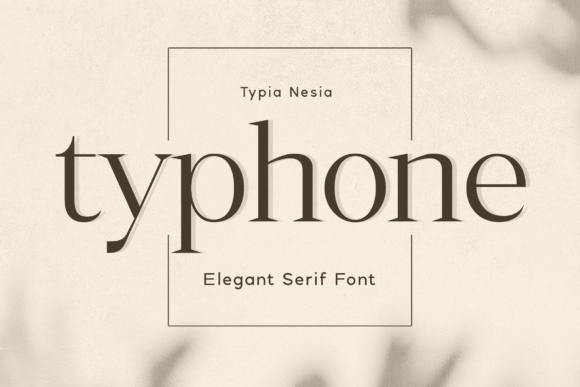
Introducing Typhone Font, the epitome of sophistication and elegance in the realm of typography. This captivating serif font, meticulously crafted by the visionary minds at Typia Nesia, is an artistic masterpiece that will elevate your designs to new heights of visual excellence.
With its graceful curves and refined details, Typhone Font exudes an aura of timeless beauty. Its versatile nature makes it the perfect choice for a wide range of creative projects, from stunning cover art and captivating branding to eye-catching posters and social media graphics.
Unleash your imagination and embark on a creative journey with Typhone Font. Let your words dance with exquisite elegance, your designs shimmer with sophistication, and your brand identity exude an unforgettable charisma. Typhone Font is more than just a font; it's a key that unlocks a world of creative possibilities, empowering you to captivate your audience and leave a lasting impression.
Immerse yourself in the allure of Typhone Font and discover a world where typography meets art. Its delicate strokes and alluring curves will transform your designs into masterpieces, leaving your audience spellbound. Elevate your creative endeavors and embark on a journey of visual enchantment with Typhone Font.